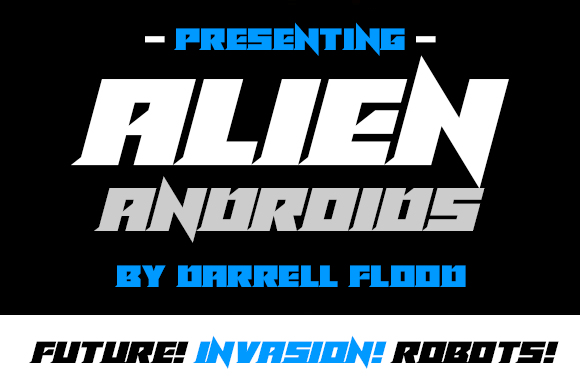
The Cosmic Typography of Alien Androids Font
Imagine you’re designing a sci-fi movie poster, and you’re looking for the perfect font to capture the essence of a futuristic world. You scroll through your font library, and suddenly, a sharp, stylized display font catches your eye. This is the moment when you know you’ve found the perfect tool for your creative vision.
Introducing Alien Androids Font, a cutting-edge typeface designed to transport you to a world of space adventures and technology-related themes. With its angular, hi-tech style and strong vertical spikes, this font is sure to add an extra layer of impact to your designs. Whether you’re a seasoned designer or a budding artist, Alien Androids Font is a valuable addition to your toolkit, offering endless possibilities for creative expression.
- Unique Characteristics: Alien Androids Font features a futuristic and otherworldly design, with a blend of mechanical and organic elements that give it a truly unique look.
Alien Androids Font Review
Overall, I found the “Alien Androids Font” to be a quirky and unique addition to any project. It’s perfect for designers looking to create a futuristic or sci-fi theme.
- ✨ Unique character set: The font has a wide range of characters, including some that are quite out of this world (pun intended). This makes it perfect for designers who want to create a truly otherworldly feel.
- ⚠️ Limited legibility: At smaller font sizes, the characters can become difficult to read. This may be a problem for designers who need to use the font for body text.
In conclusion, I think the “Alien Androids Font” is a great addition to any designer’s toolkit. While it may have some limitations, it’s perfect for designers who want to create a unique and futuristic look.
Some tips for getting the most out of the Alien Androids Font include:
– Using it for sci-fi themed designs and projects.
– Combining it with other futuristic fonts for a cohesive look.
– Adjusting the font size and color to create visual interest.
– Using it for headings and titles to create a bold, attention-grabbing effect.